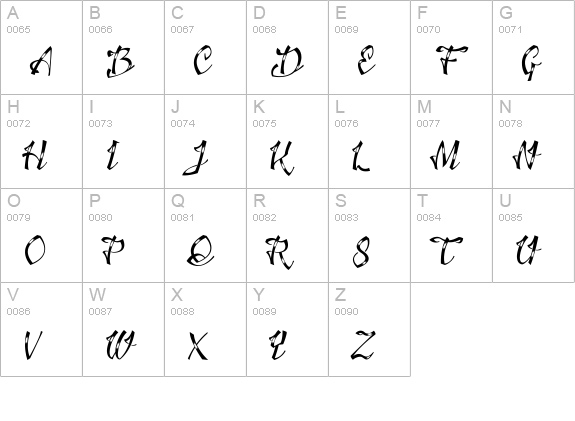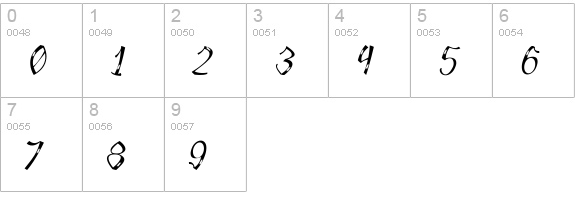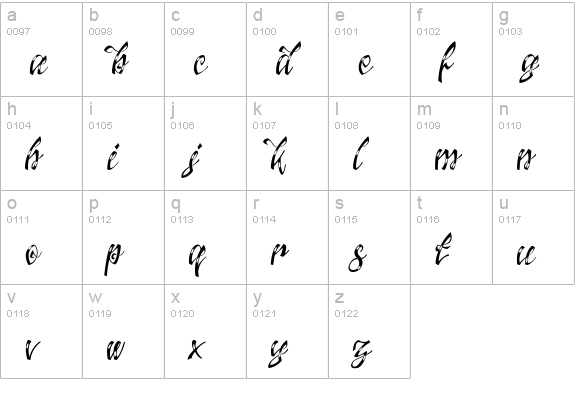
Jacked Eleven Highlight Font Details
Introducing Jacked Eleven Highlight font, a bold and dynamic typeface designed to make your text come alive with a powerful presence. This font exudes strength and confidence, making it the perfect choice for headlines, logos, and any design project that requires a touch of impact. With its sharp edges and bold strokes, Jacked Eleven Highlight font demands attention and leaves a lasting impression. Its distinct character and modern aesthetic make it versatile for a wide range of applications, whether it be in print or digital mediums. What sets Jacked Eleven Highlight font apart is not only its boldness, but also its versatility. It is available in various weights and styles, allowing you to experiment and find the perfect fit for your design. From a subtle highlight to an attention-grabbing headline, this font has you covered. And the best part? Jacked Eleven Highlight font is free! Yes, you heard it right. This stunning font is freely available to download at FontsMarket.com, making it accessible to designers and enthusiasts alike. Say goodbye to expensive licenses and hello to creativity without boundaries. So why wait? Elevate your designs with the power of Jacked Eleven Highlight font. Download it for free today at FontsMarket.com and unleash your creativity like never before.